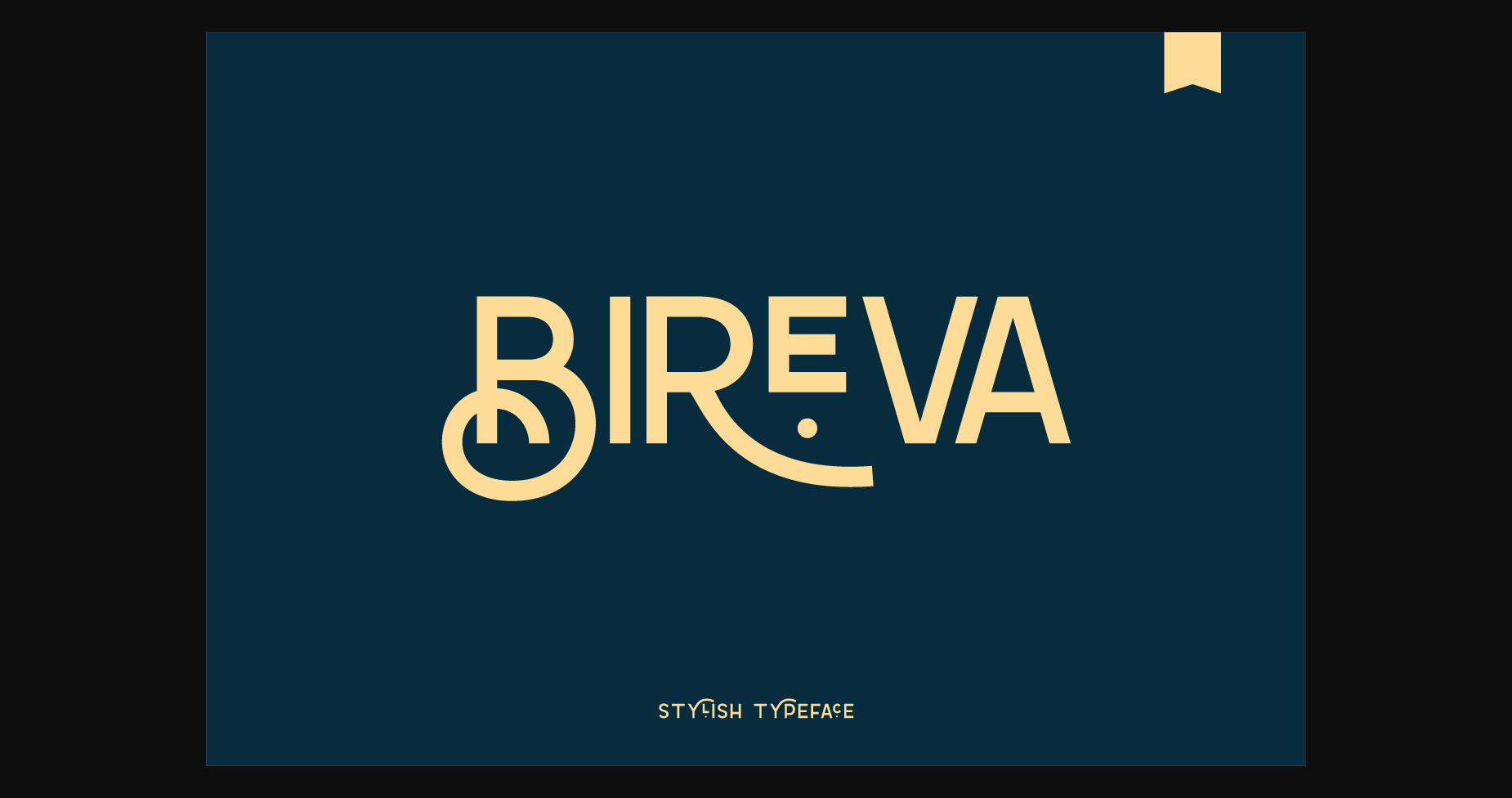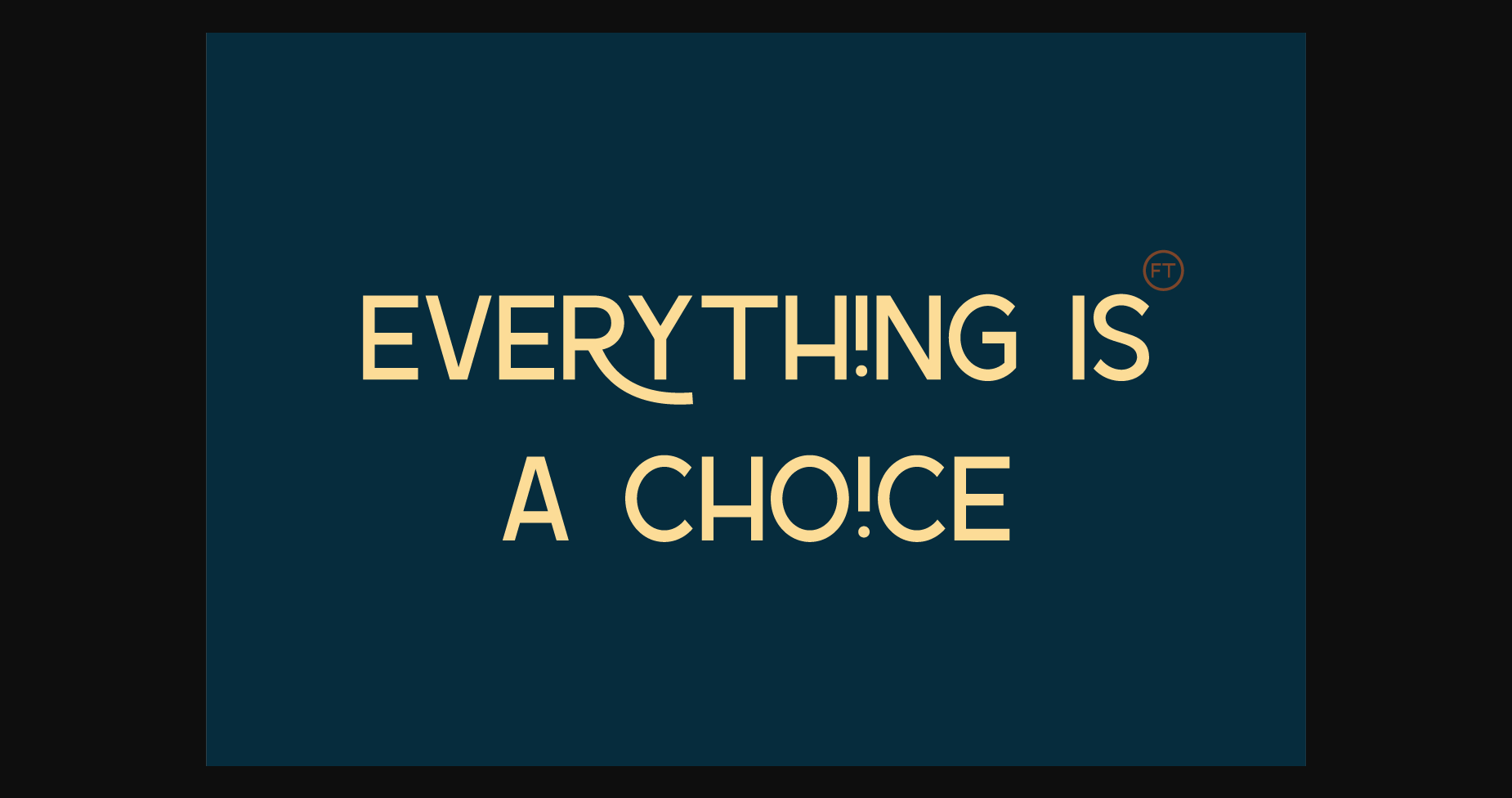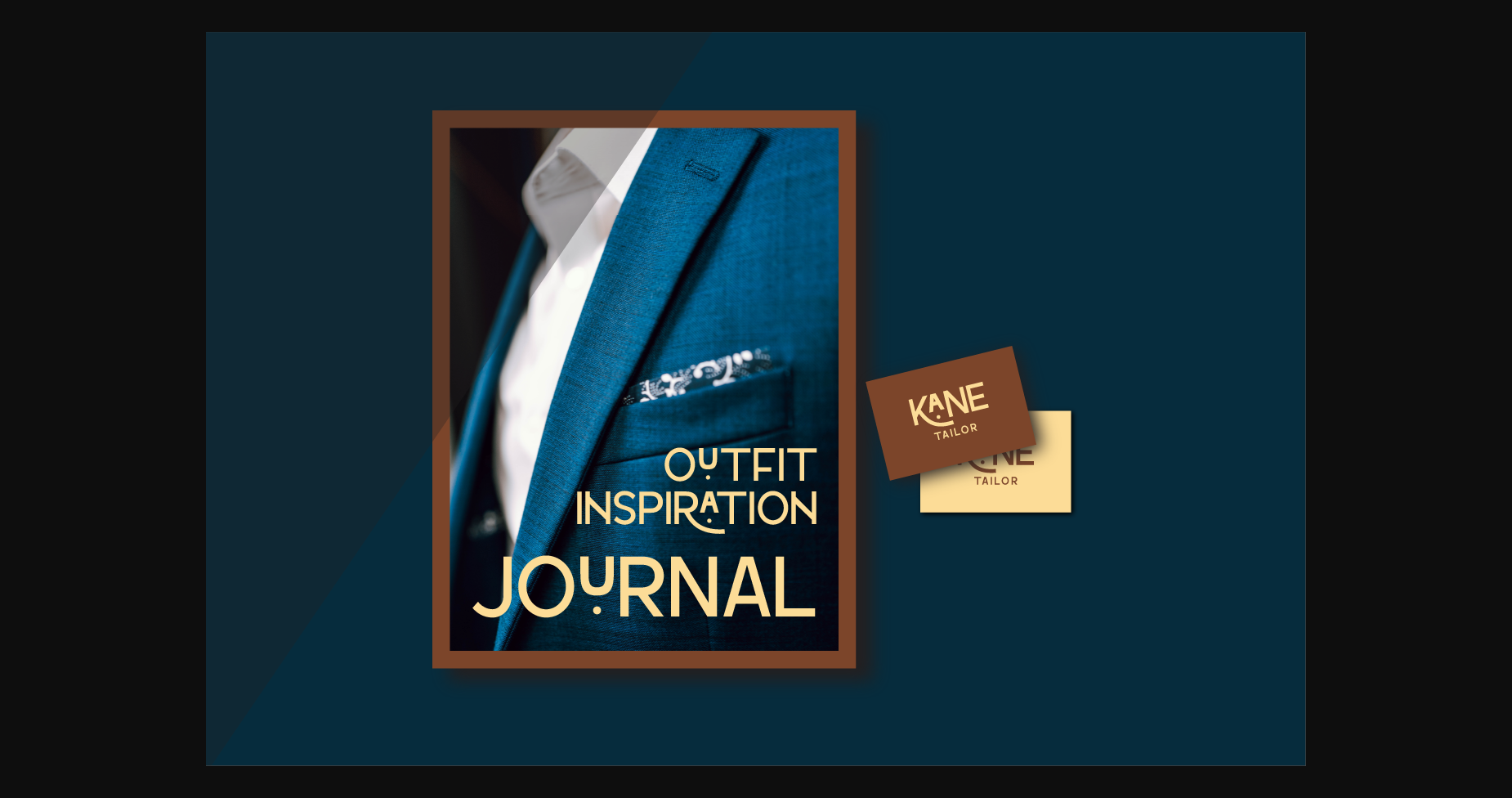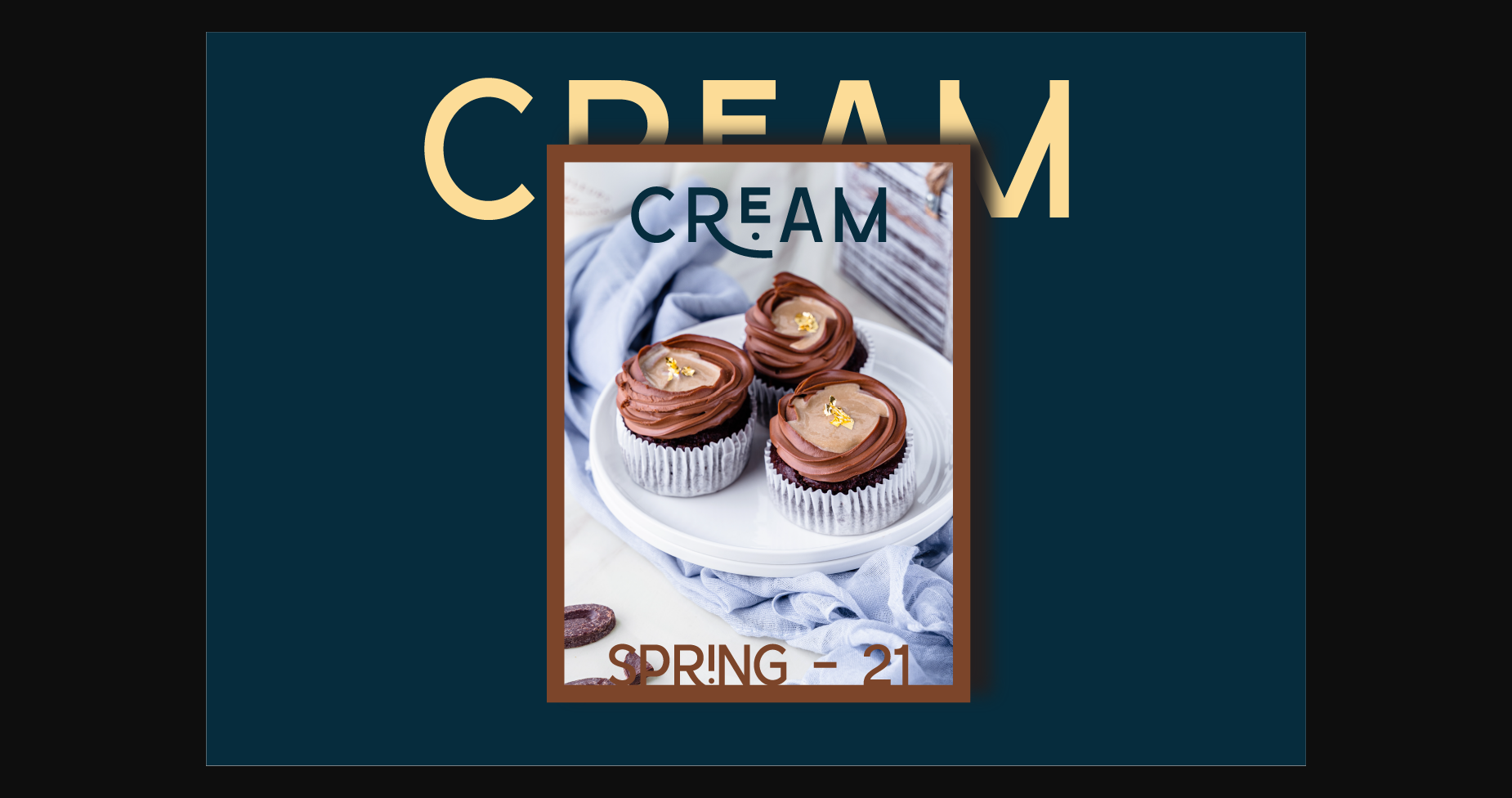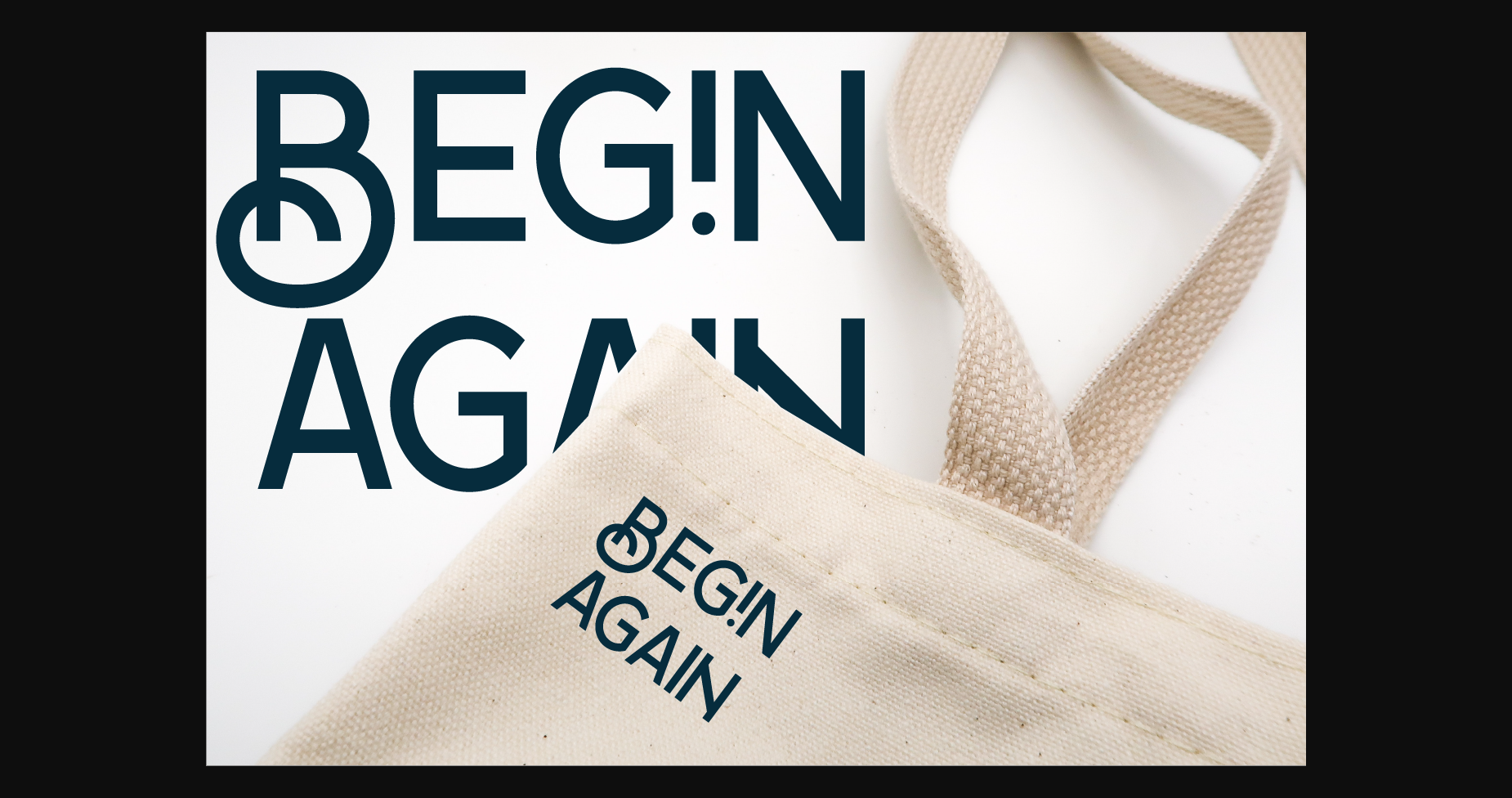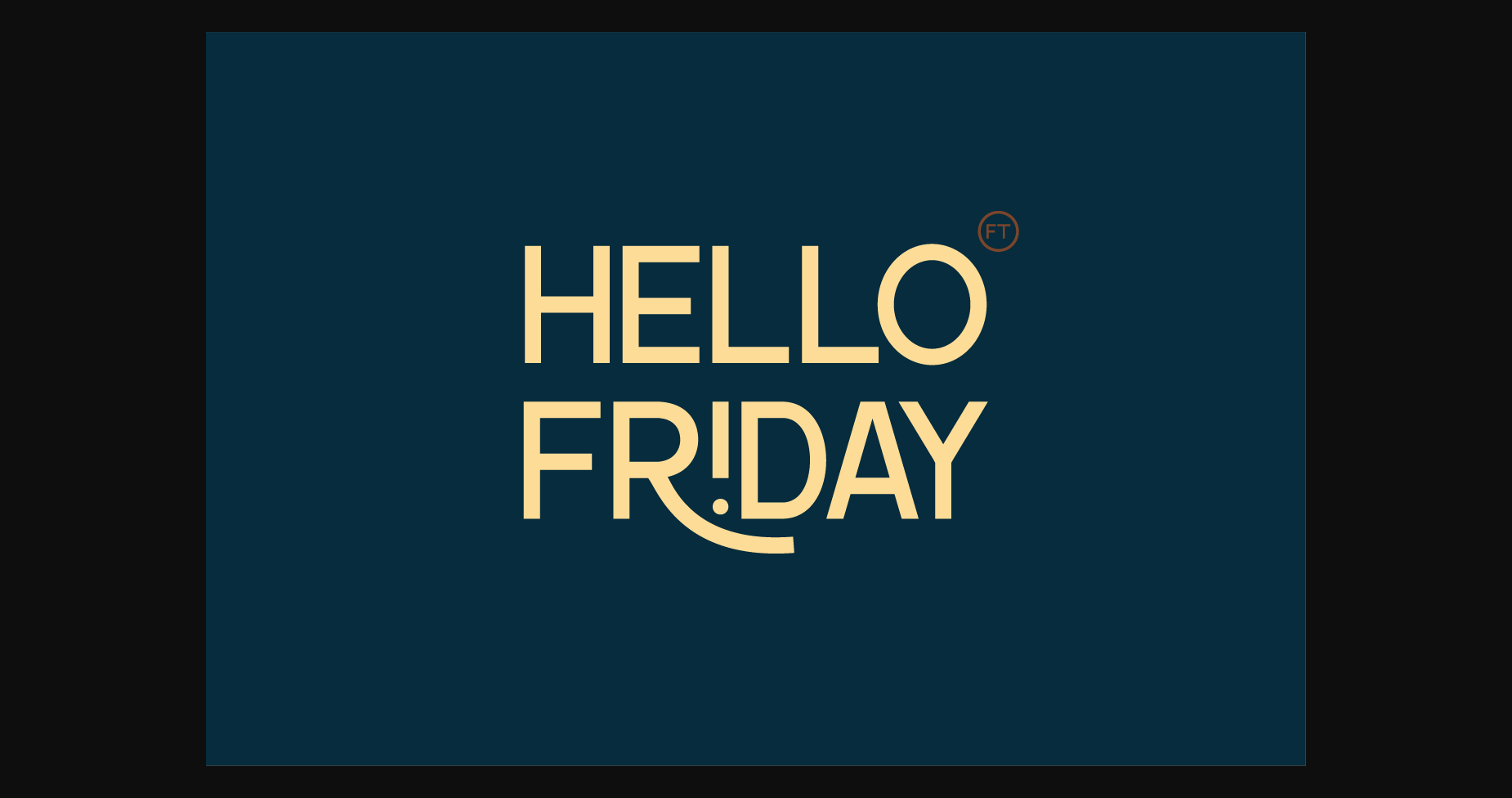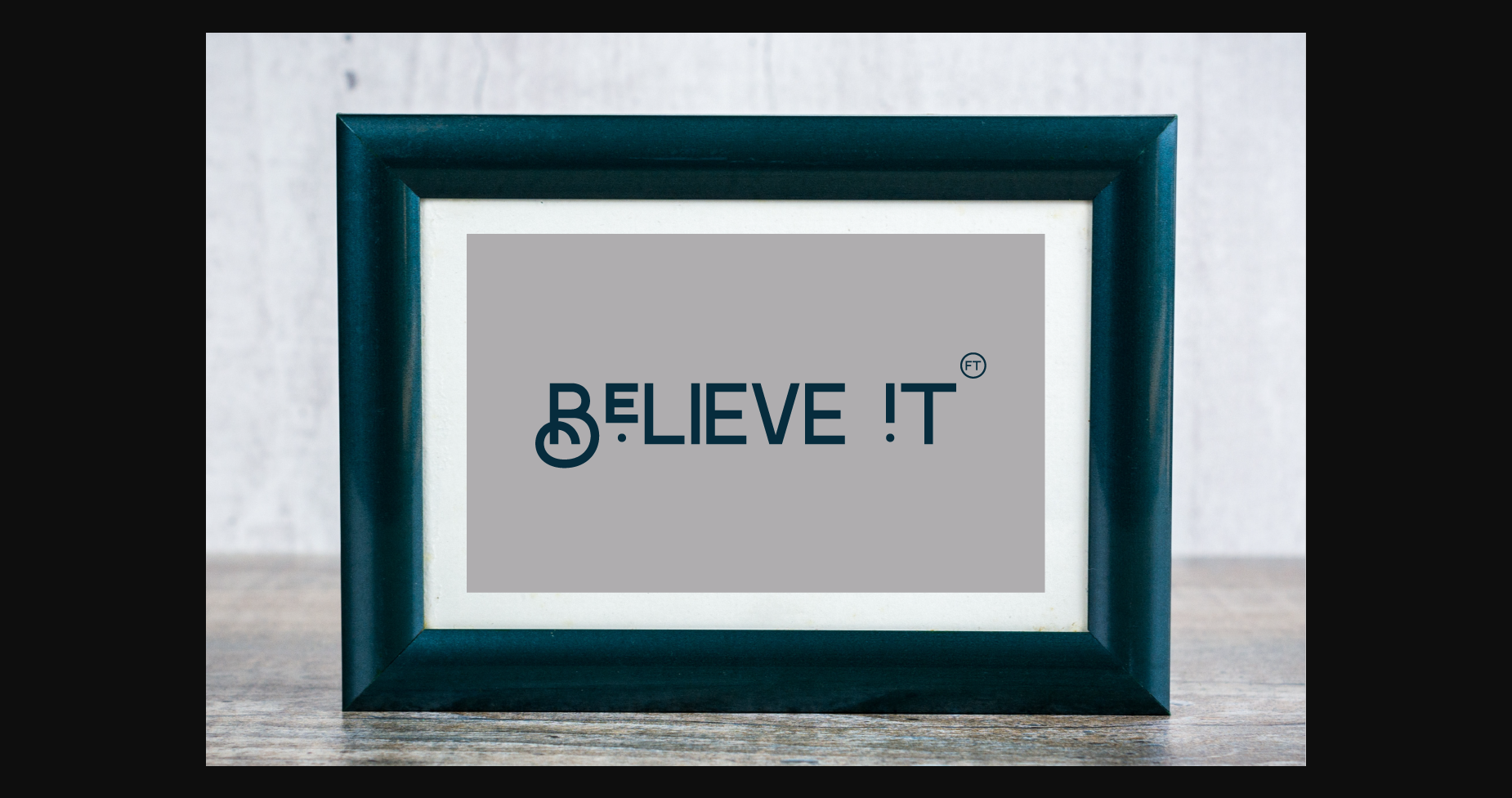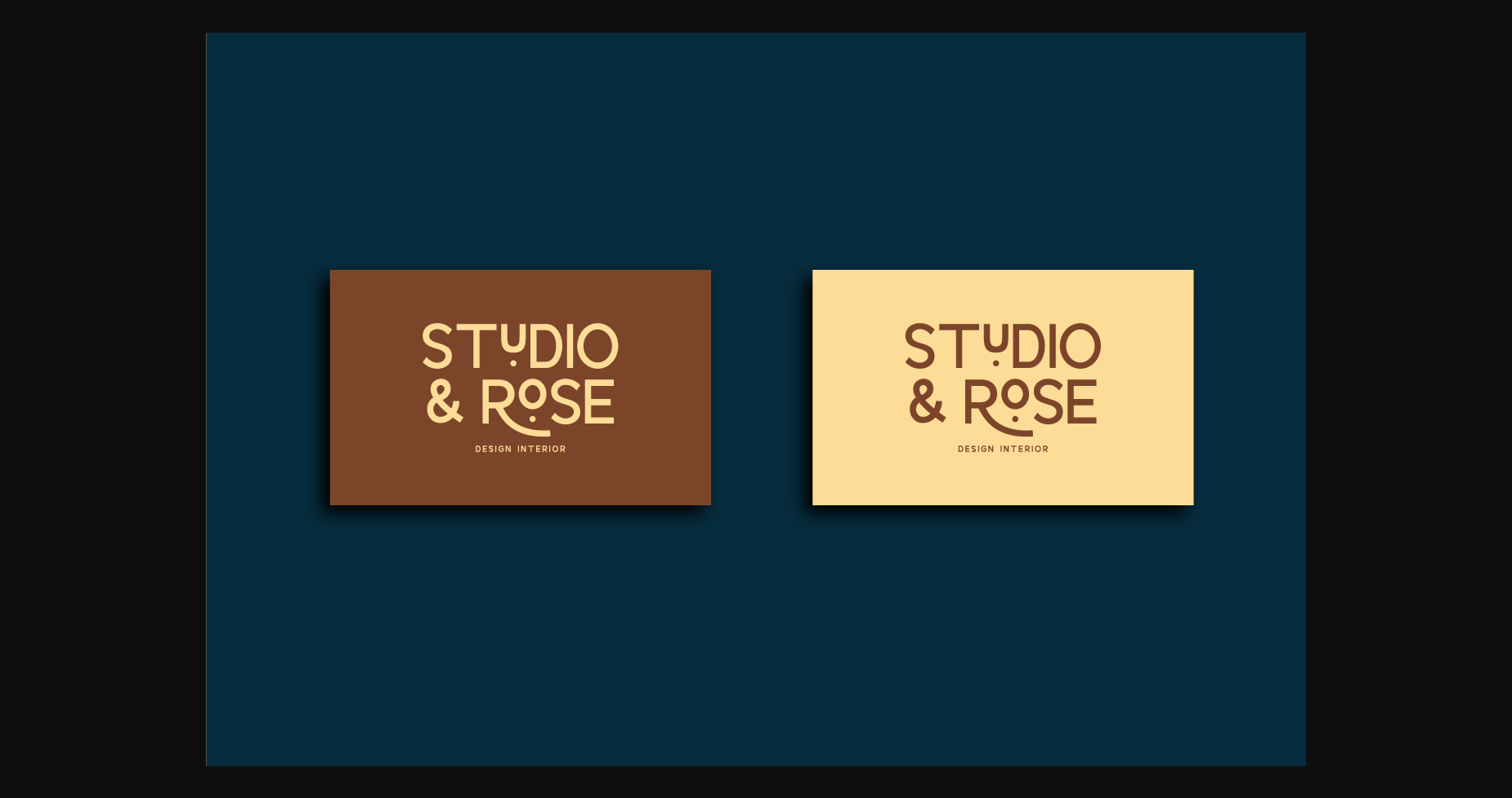
Beriva is an organic and unique sans serif font. It can easily be matched to an incredibly large set of projects, so add it to your creative ideas and notice how it makes them stand out!